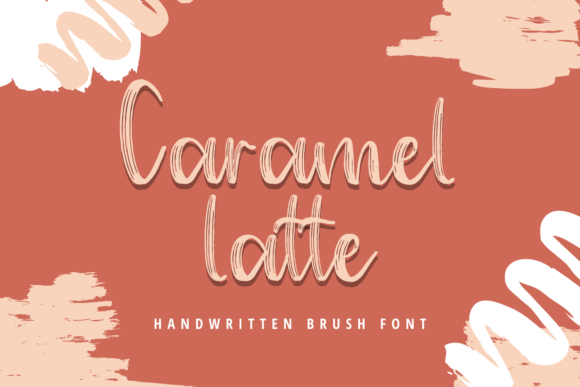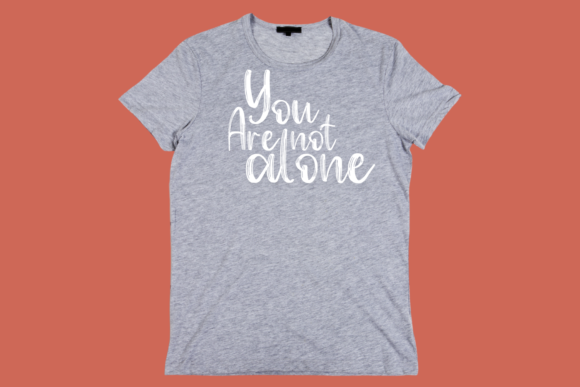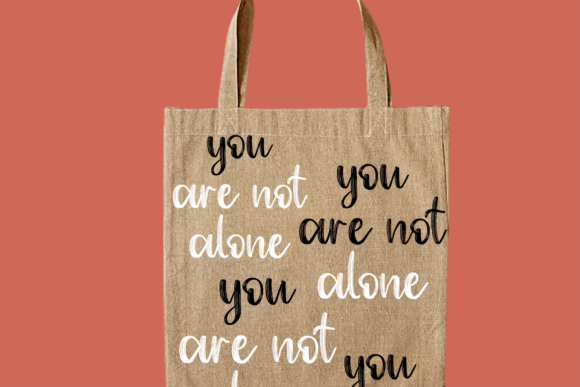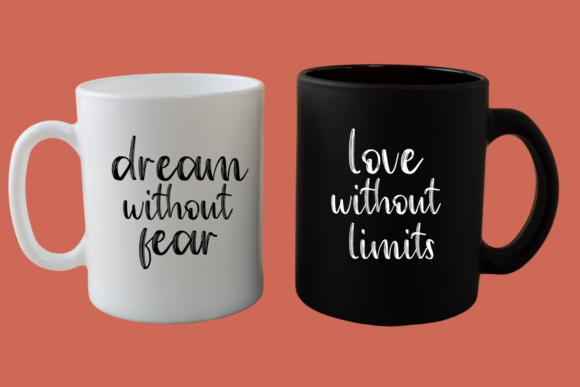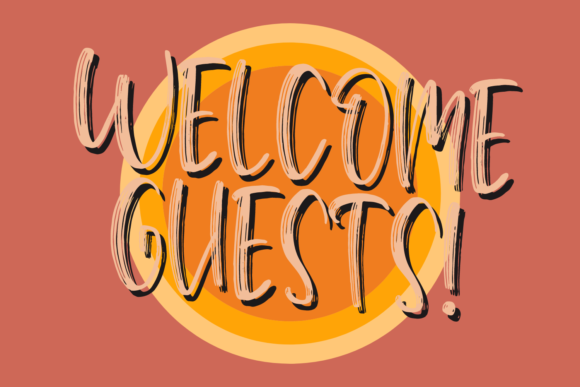
Caramel Latte
About Caramel Latte Font
Caramel Latte is a handwritten brush font. It is perfectly suited for traditional media and web. It is also great for crafters and graphic artists alike.